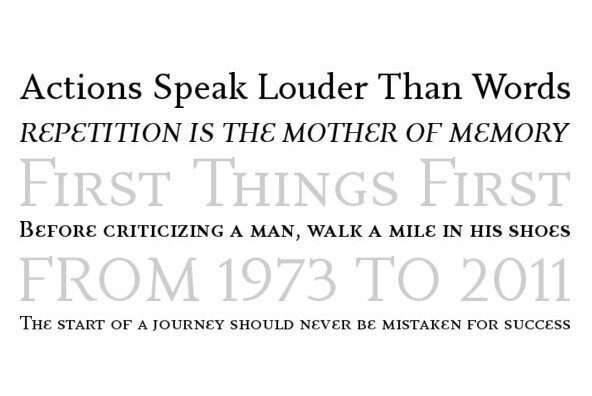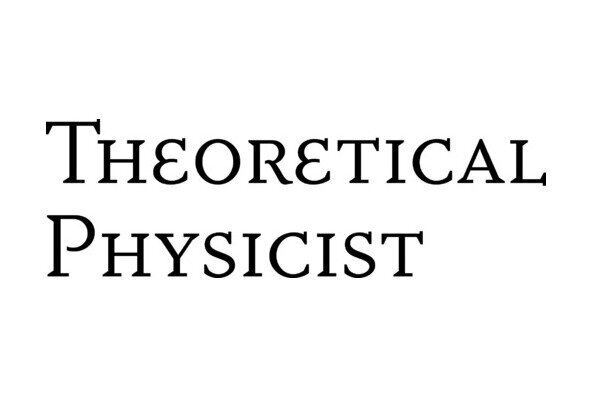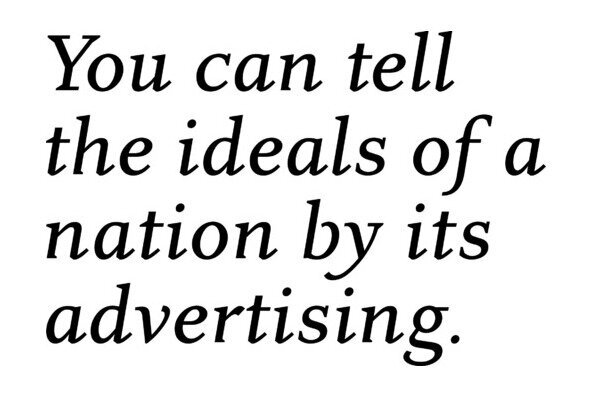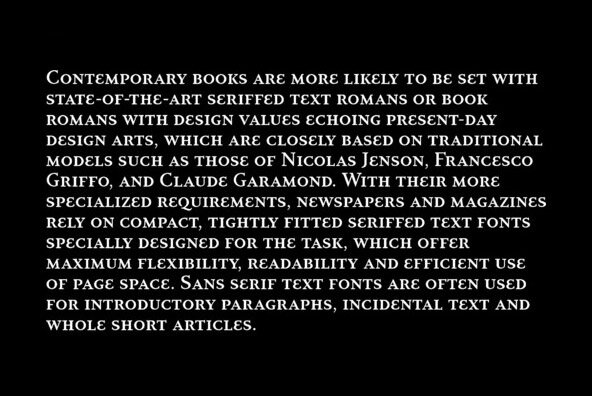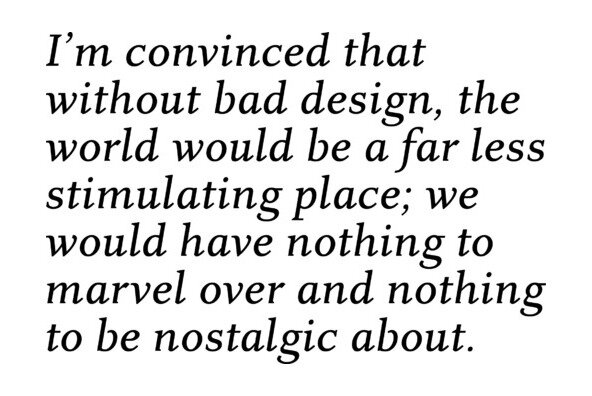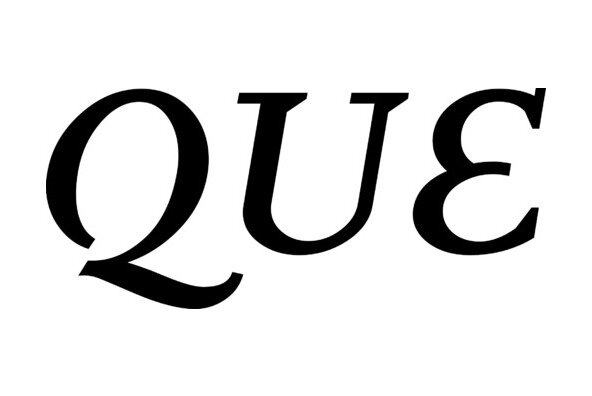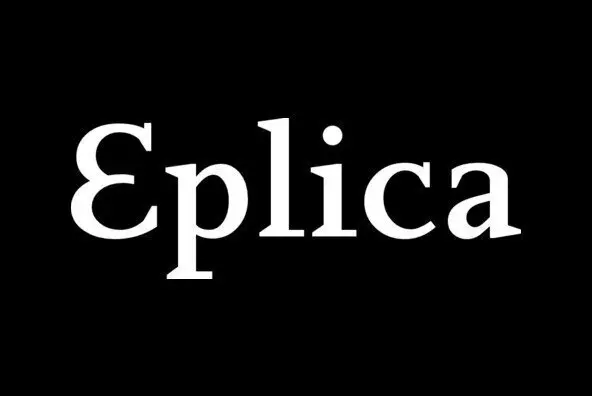
Austrian designer Yvonne Diedrich created Eplica as a comprehensive series comprising three roman weights and one italic, all of which have an abundance of ligatured characters. All weights includes Small Caps fonts with additional old style numerals and ornaments, and the complete family provides an excellent tool for the most demanding of typographic requirements. Such has been the success of the Eplica series that Letraset have now added Medium and Bold Italic weights to the family. The style of Eplica has been influenced by the particular historical periods of serif typefaces. This is no more apparent than within its bilateral serif construction, in which one side reflects Old Face style and the other Modern Face style. The overall appearance, in which the letters have a strong vertical stress and pronounced contrast between lineweights, serves to evoke a clean cut style that is definitely 21st century. Yvonne Diedrich has used her extensive knowledge of all forms of roman typeface styles in order to fulfil her objective for Eplica which, in her words, "attempts to form a versatile symbiosis of classical elegance and high legibility with a contemporary calligraphic approach".